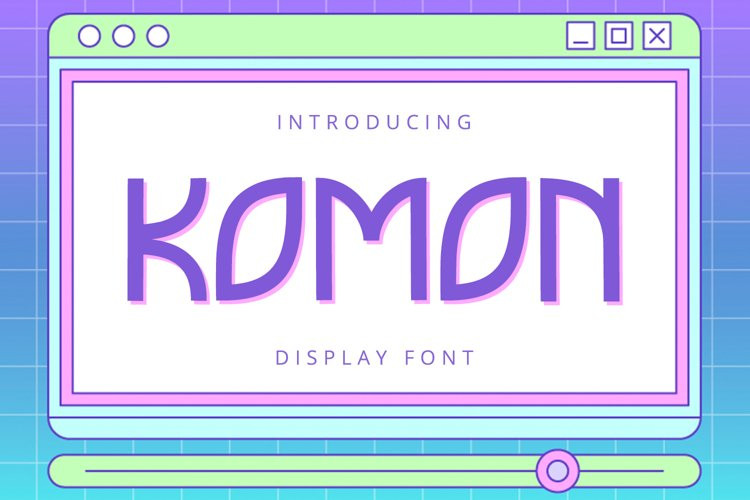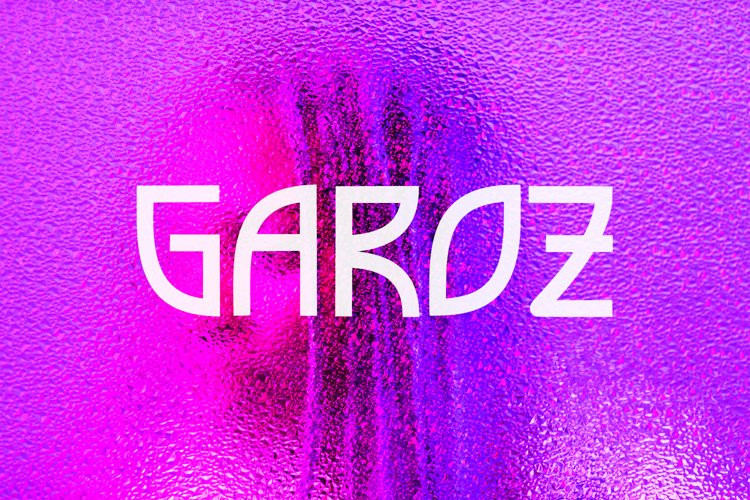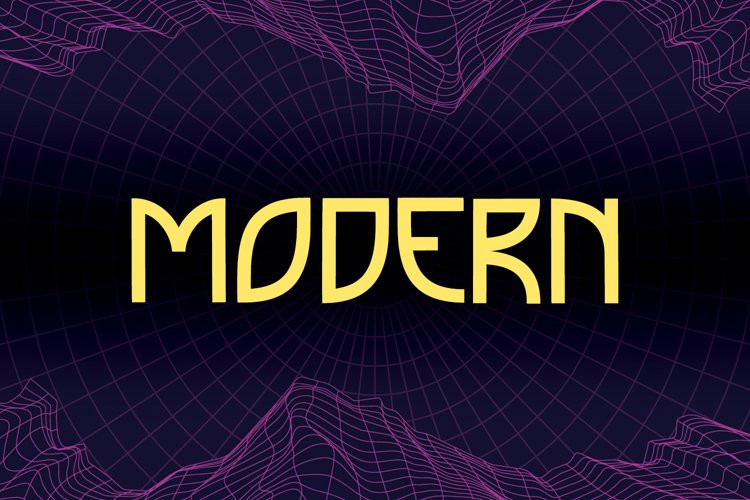
Komon Font
Komon FontKomon is a stunning playful display font with cute and casual feels. It will be perfectly used for Branding, Logo Design, Lettering, Logotype, Clothing, Poster, magazine, packaging, posters, shopping bags, t-shirts, book covers, photography, special events and other design project.